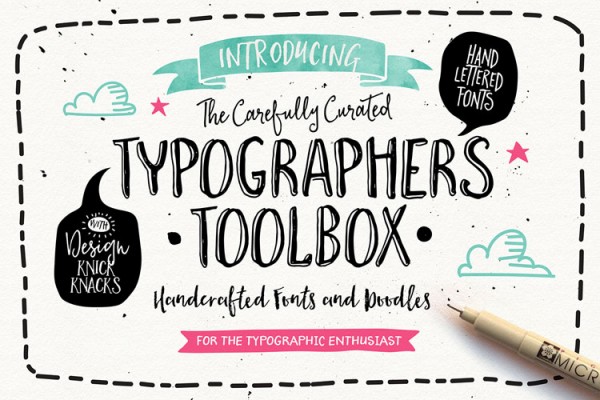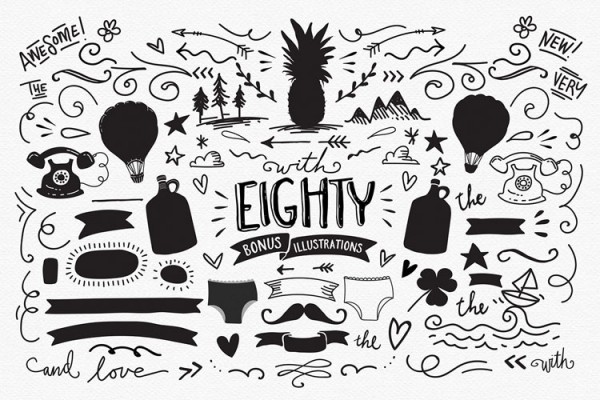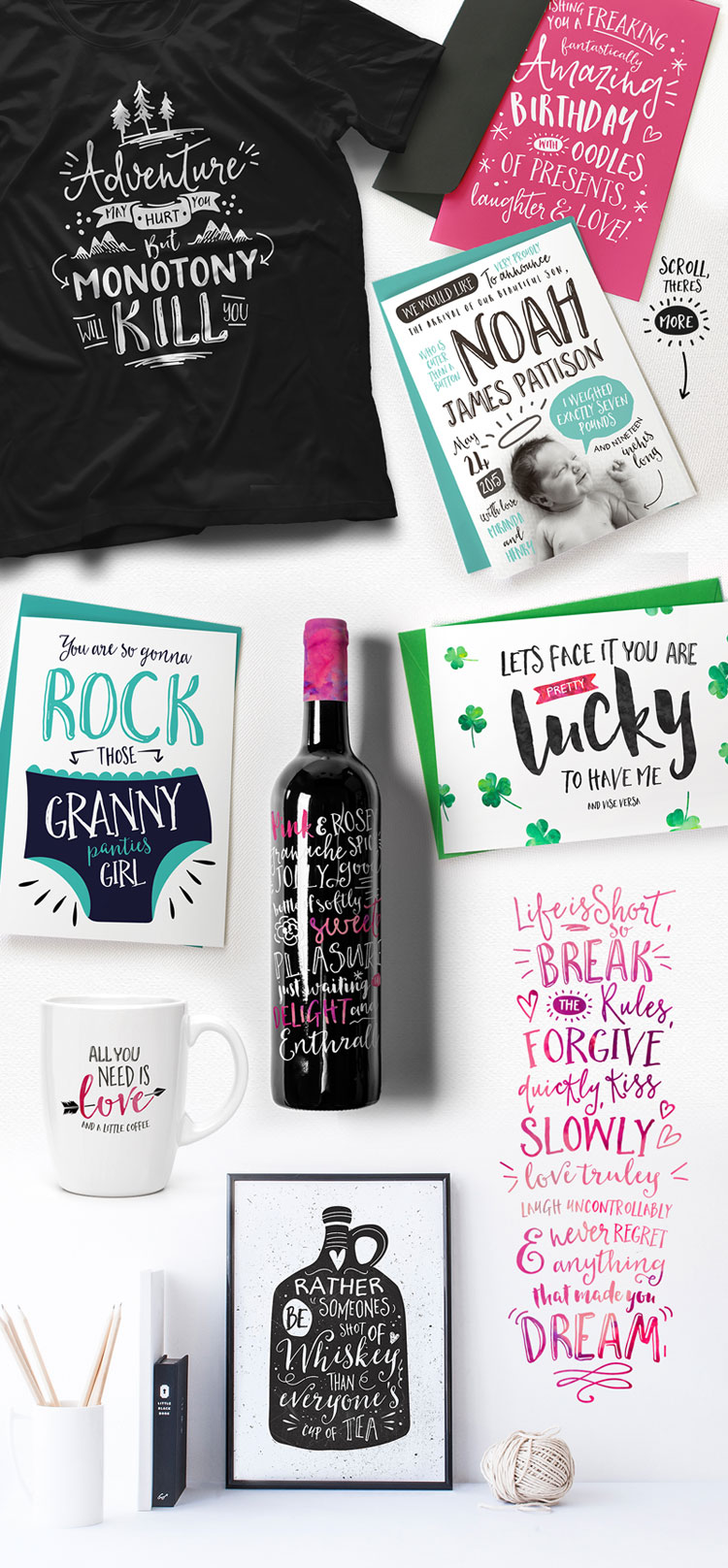
The Typographer’s Toolbox, a collection of handcrafted fonts and doodles by Nicky Laatz for the typographic enthusiast.
As a self-confessed handlettering-aholic, Nicky Laatz has created this set of handcrafted fonts that suit each other very well when paired together. In addition to the 16 brush typefaces, Nicky Laatz has equipped this collection with 80 lovingly designed illustrations and doodles.